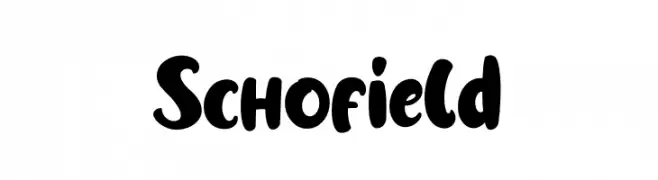
A bold, geometric font with a modern, structured design.
An elegant and flowing script font with graceful curves and smooth strokes.
A playful, handwritten font with smooth curves and a casual style.
A casual, handwritten script font with a smooth, connected flow.
A bold, italic script font with elegant, flowing curves and a strong presence.
A lively, handwritten font with flowing, cursive-like strokes.
An elegant and flowing script font with decorative swashes.
A bold, high-contrast italic font with elegant serifs and dynamic movement.
A bold, high-contrast serif font with dramatic flair.
A bold, oblique serif font with sharp angles and strong presence.
A graceful, cursive font with elegant curves and stylish flourishes.
A bold, high-contrast font with a modern, geometric style.
A bold, geometric font with a futuristic, arcade-inspired design.
A modern, elegant script font with fluid curves and a refined style.
An elegant, cursive font with a flowing, italicized style.
A bold, hand-painted style font with a distressed, artistic texture.
A bold, handwritten font with playful and energetic characteristics.
A bold, handwritten font with a playful and dynamic style.
A dynamic and expressive handwritten script font with a modern flair.
A dynamic, cursive script font with elegant, flowing strokes.
A dynamic and playful script font with a handwritten feel.
A playful and dynamic script font with flowing, cursive letterforms.
A bold, playful script font with expressive, cursive letterforms.
A playful and elegant script font with a handwritten style.
A dynamic and elegant cursive script font with a handwritten appearance.
A bold, energetic script font with a handwritten feel.
A dynamic, flowing script font with a handwritten appearance.
A dynamic and expressive handwritten font with fluid, slightly slanted letterforms.